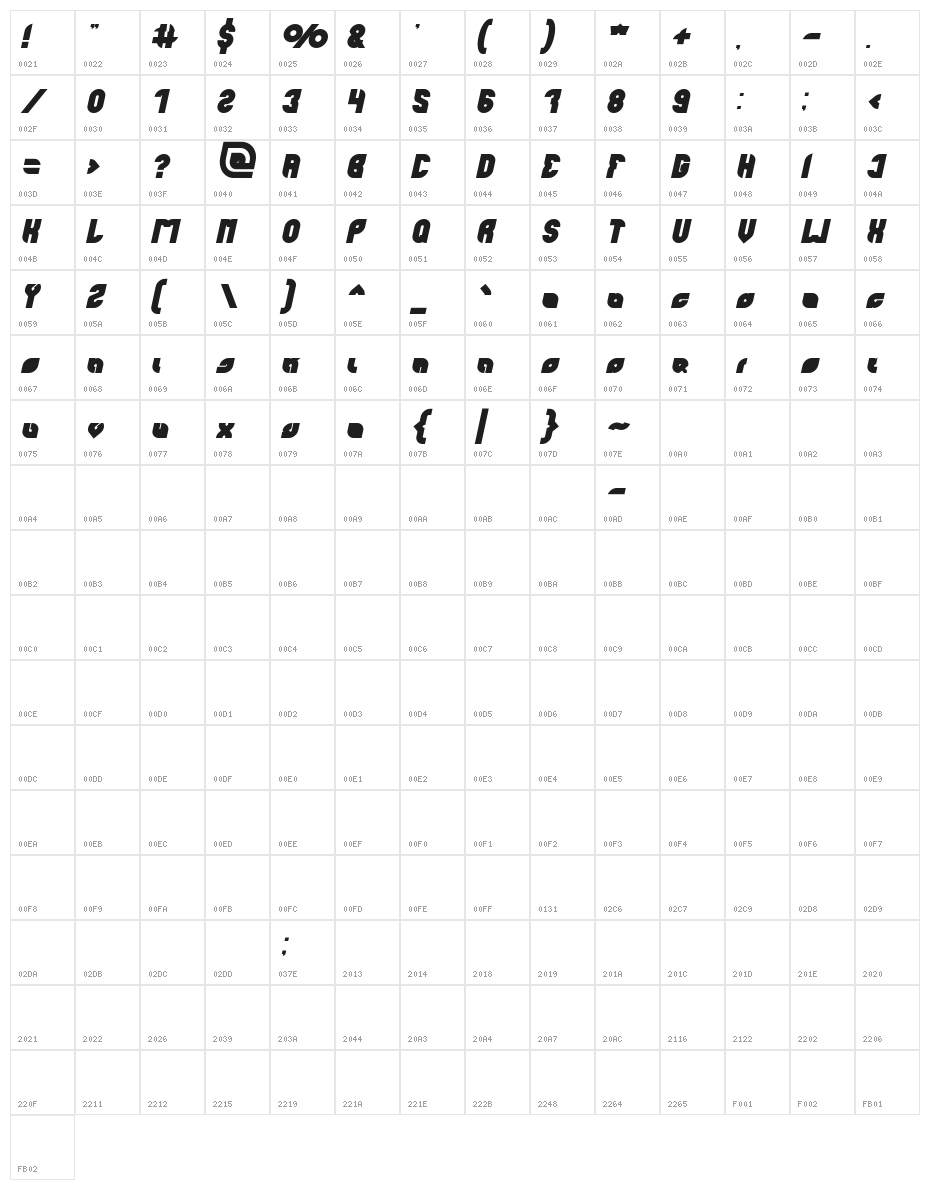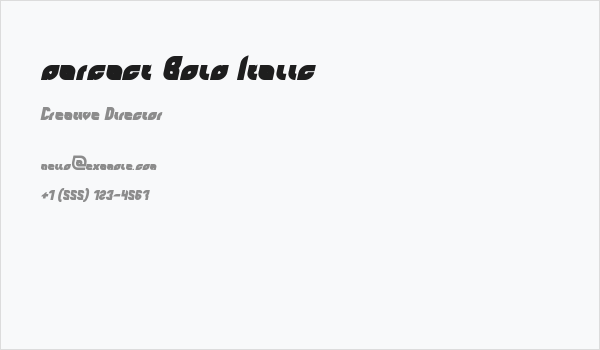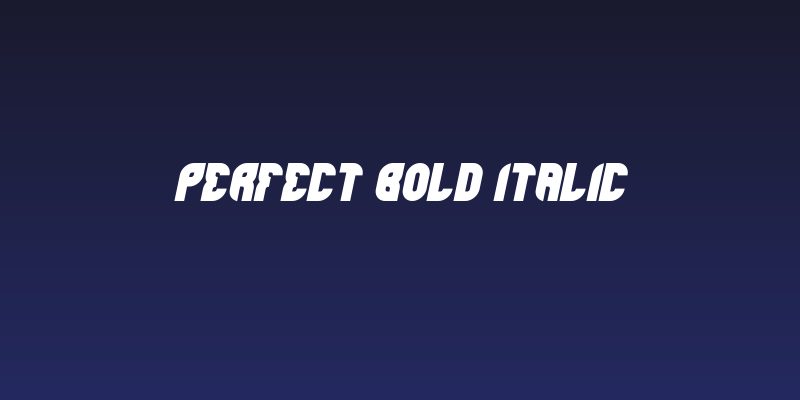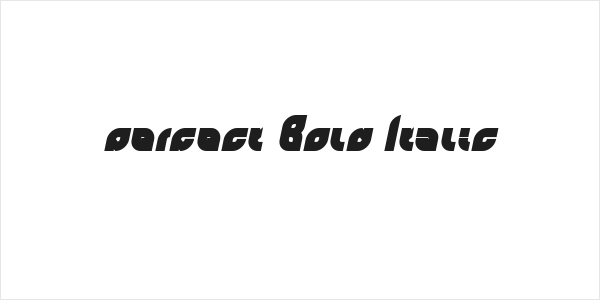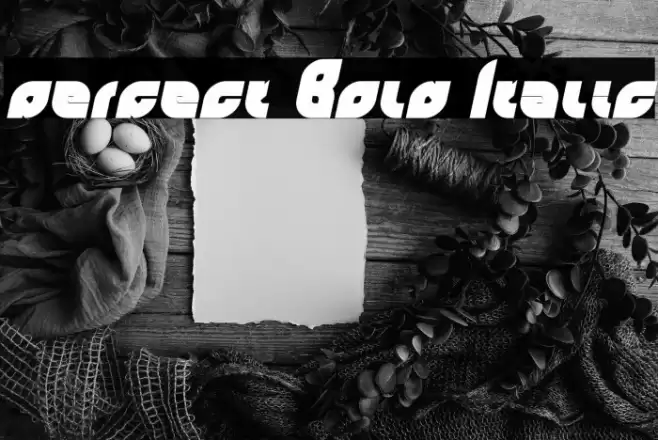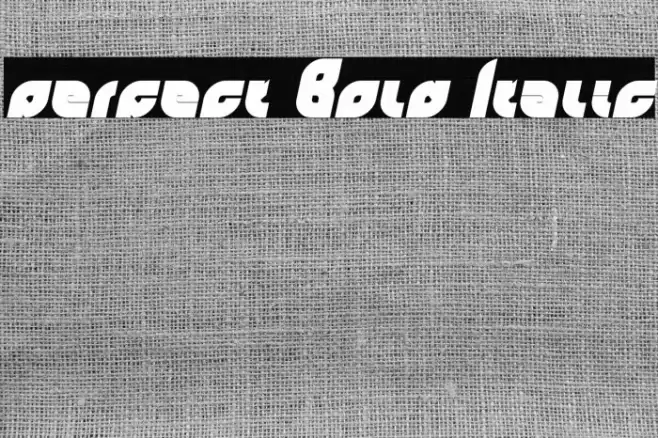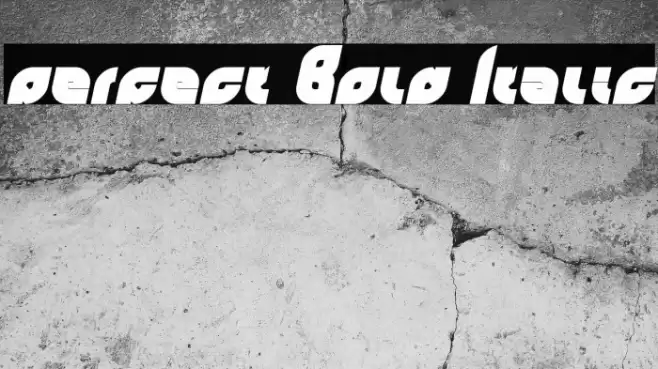
perfect Bold Italic Font
This font exhibits a bold and italicized style with a strong presence. The characters are heavily weighted, giving them a robust and impactful appearance. The italic slant adds a dynamic and forward-moving feel, enhancing its modern and edgy aesthetic. The strokes are thick and consistent, contributing to a high contrast between the characters and the background. The design is unique, with certain letters featuring angular cuts and geometric shapes, adding a decorative flair. The numbers and special characters maintain the same bold and italicized characteristics, ensuring uniformity across all elements. This font is designed to capture attention and convey a sense of strength and modernity.
| Proposed Projects | Ideal for headlines, posters, branding, and any project requiring a strong visual impact. |